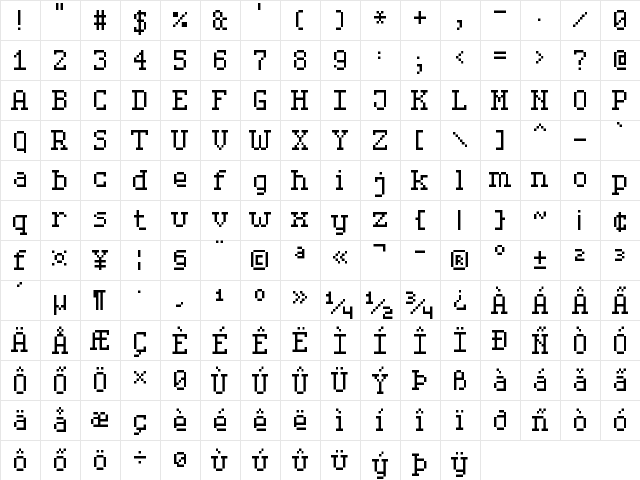
Serif Pixel-7 Regular
| Foundry | Style-7 |
| Designer | Sizenko Alexander |
Design Context for Serif Pixel-7 Typeface
Serif Pixel-7 celebrates the constraints of early digital type, turning pixel geometry into a distinctive and immediately recognisable style.
A natural choice for retro game titles, chiptune music branding, 8-bit UI, and digital nostalgia projects.